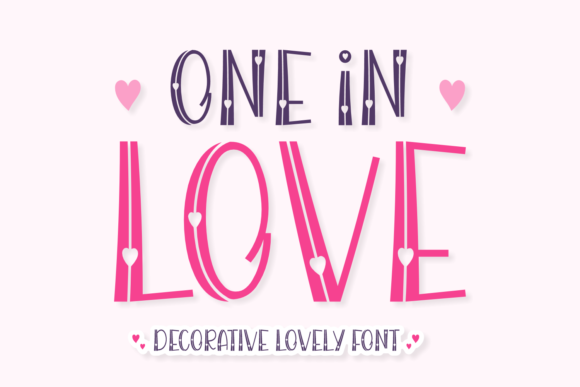
Step into a world of romance and enchantment with One in Love Font, a stunning decorative font that will sweep you off your feet. Crafted with intricate heart details, this lined typeface exudes elegance and playfulness, making it the perfect choice for expressing your heartfelt emotions.
Fall in love with the delicate curves and captivating hearts that adorn each letter, creating a visual symphony that captivates the senses. Whether you're designing Valentine's Day cards, wedding invitations, or creating heartfelt logos, One in Love Font breathes life into your words, transforming them into works of art.
Unleash your creativity and let your imagination soar as you explore the endless possibilities of One in Love Font. Its versatility knows no bounds, allowing you to craft T-shirts that speak to the heart, design quotes that resonate with emotion, and create banners that command attention.
With One in Love Font, every design becomes a reflection of your love and passion. Its unique charm ignites the imagination, evoking feelings of joy, warmth, and affection. As you weave your words into existence, you'll discover a new level of expression that captivates your audience and leaves them spellbound.
Experience the magic of One in Love Font and embark on a journey of love and creativity. Let your designs bloom with romance and captivate the hearts of those who behold them. Embrace the power of this enchanting font and watch as your creative vision takes flight.